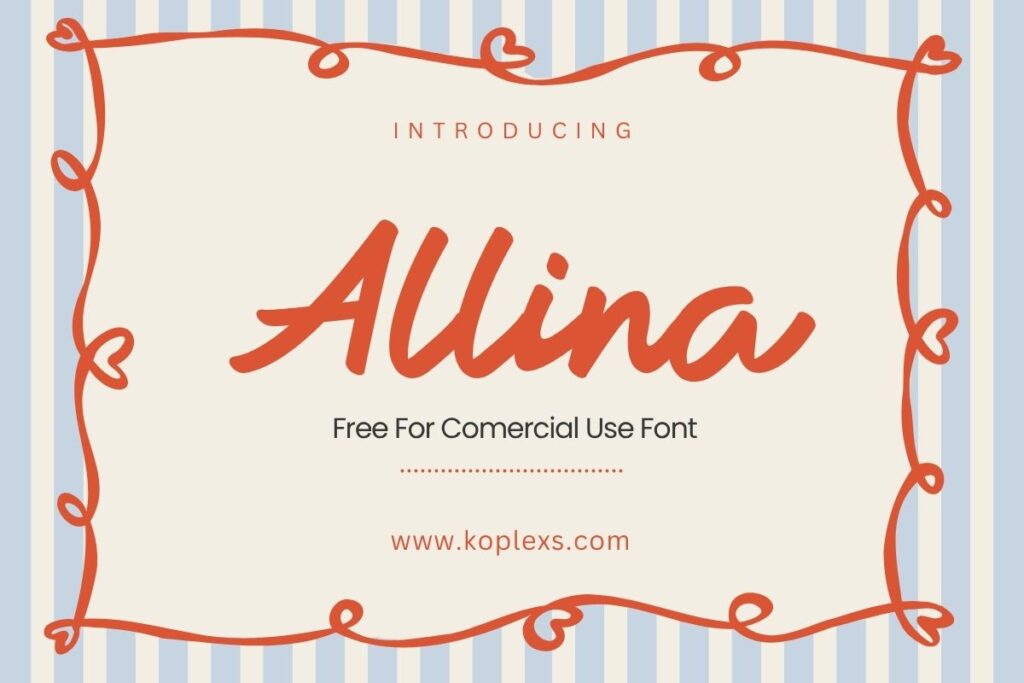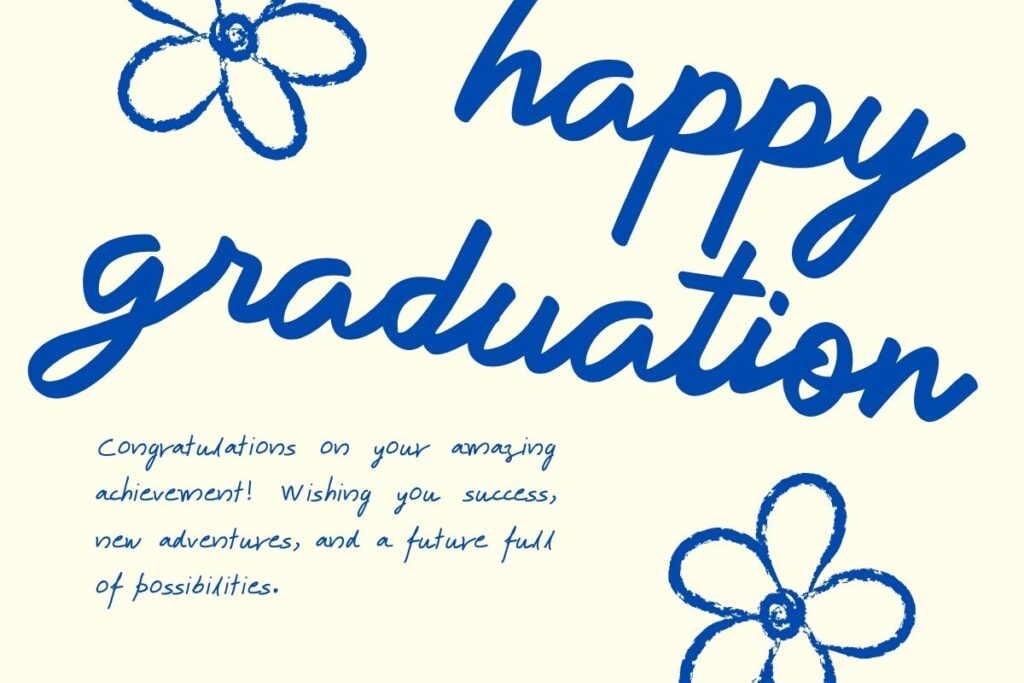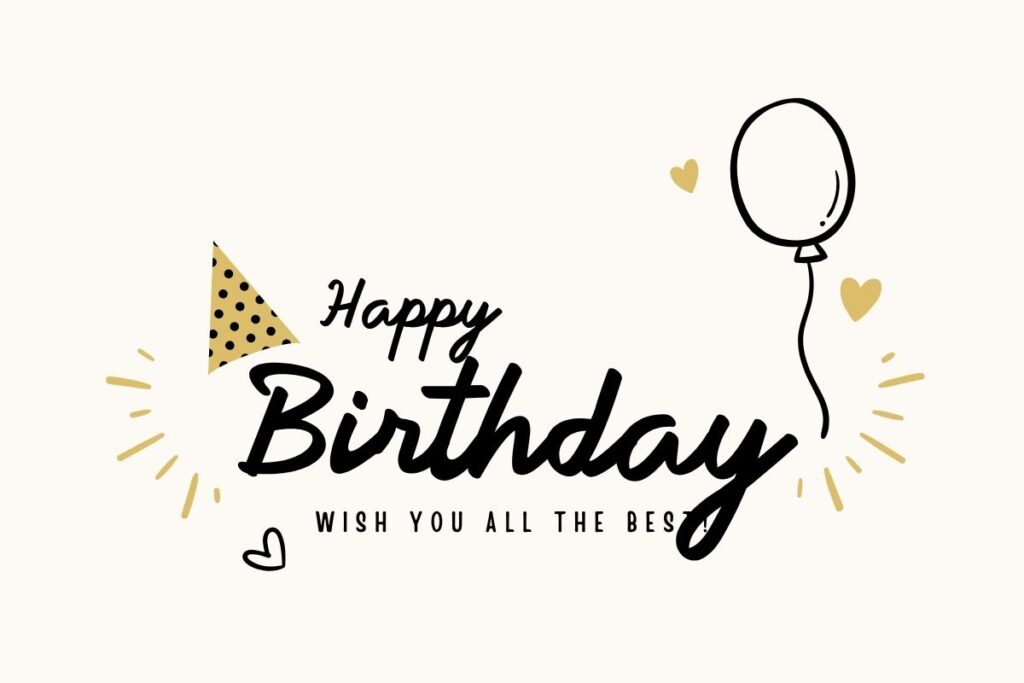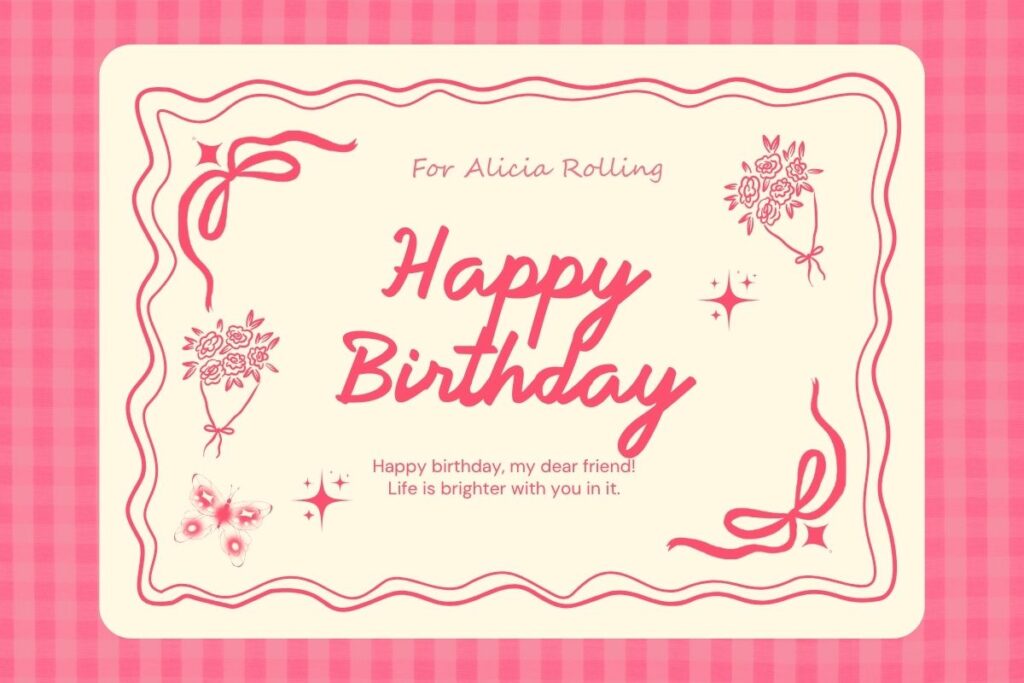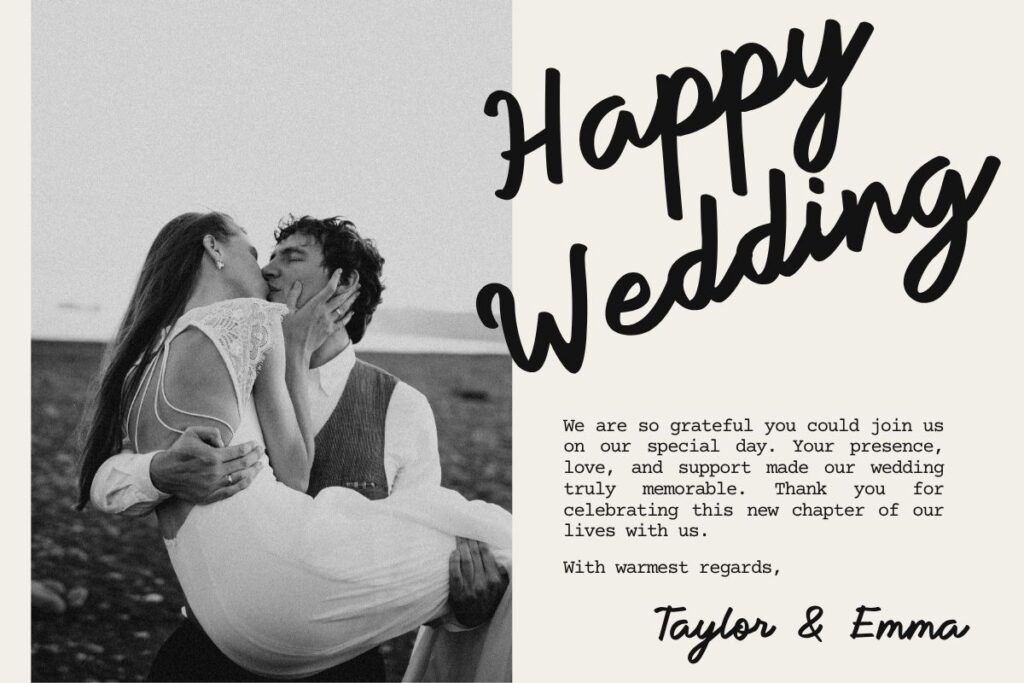
Free Commercial Use Fonts That Feel Premium: Meet Allina, a Beautiful Script Font for Creative Projects
Allina Free Commercial Use Fonts. Finding a beautiful font is easy. Finding one that looks professional, works across different creative projects, and can be used commercially without an expensive license is much harder.
Designers, small business owners, Cricut users, content creators, and handmade sellers often search for free commercial use fonts because typography can quickly increase production costs. A single premium typeface may look affordable at first, but additional licenses for products, advertising, websites, apps, or client work can make the final cost much higher.
That is where Allina Font becomes an appealing choice.
Allina is a flowing script font with a relaxed, handwritten personality. It combines soft curves, connected letters, and expressive strokes to create a look that feels personal without appearing careless. It can add warmth to a logo, elegance to an invitation, or personality to a product label.
More importantly, Allina is presented as a font that is free for commercial use, making it attractive to creators who want a polished visual style without adding another expense to their project.
Why Free Fonts for Commercial Use Matter
A font does more than display words. It communicates personality before someone even finishes reading the message.
A bold sans serif font can feel modern and confident. A traditional serif may suggest authority and trust. A handwritten script often feels friendly, artistic, personal, or romantic.
Meet Allina Free Commercial Use Fonts
Allina is a casual script typeface created for designs that need a personal and expressive touch. Its handwritten letterforms have a smooth rhythm, while the rounded curves help the words feel approachable.
The font works particularly well for names, short phrases, headlines, signatures, and decorative text. Instead of looking overly formal, Allina has a friendly elegance that can fit both modern and handmade visual styles.
Its most noticeable characteristics include:
- Flowing, connected script letters
- Rounded and expressive strokes
- A natural handwritten appearance
- Strong personality in short words and names
- A balance between casual and elegant styling
- Good potential for branding, crafts, and social content
Allina is not designed to replace a highly readable body-text font. Its strength is visual impact. It is best used as a display typeface, paired with a simpler font for paragraphs, descriptions, contact details, or supporting information.
What Makes Allina Free Commercial Use Fonts Stand Out?
There are thousands of free script fonts online, but many fall into one of two extremes. They either look too simple to feel distinctive or become so decorative that they are difficult to read.
Allina sits comfortably between those styles.
The letterforms are expressive enough to create a recognizable look, yet the overall word shape remains clear. This makes it useful for creators who want handwritten typography without making their message feel overly complicated.
A Friendly Handwritten Personality
Some calligraphy fonts feel formal and ceremonial. Allina has a softer, more conversational mood.
That personality makes it suitable for businesses that want to appear approachable, including bakeries, florists, beauty brands, handmade shops, photographers, event businesses, and personal lifestyle brands.